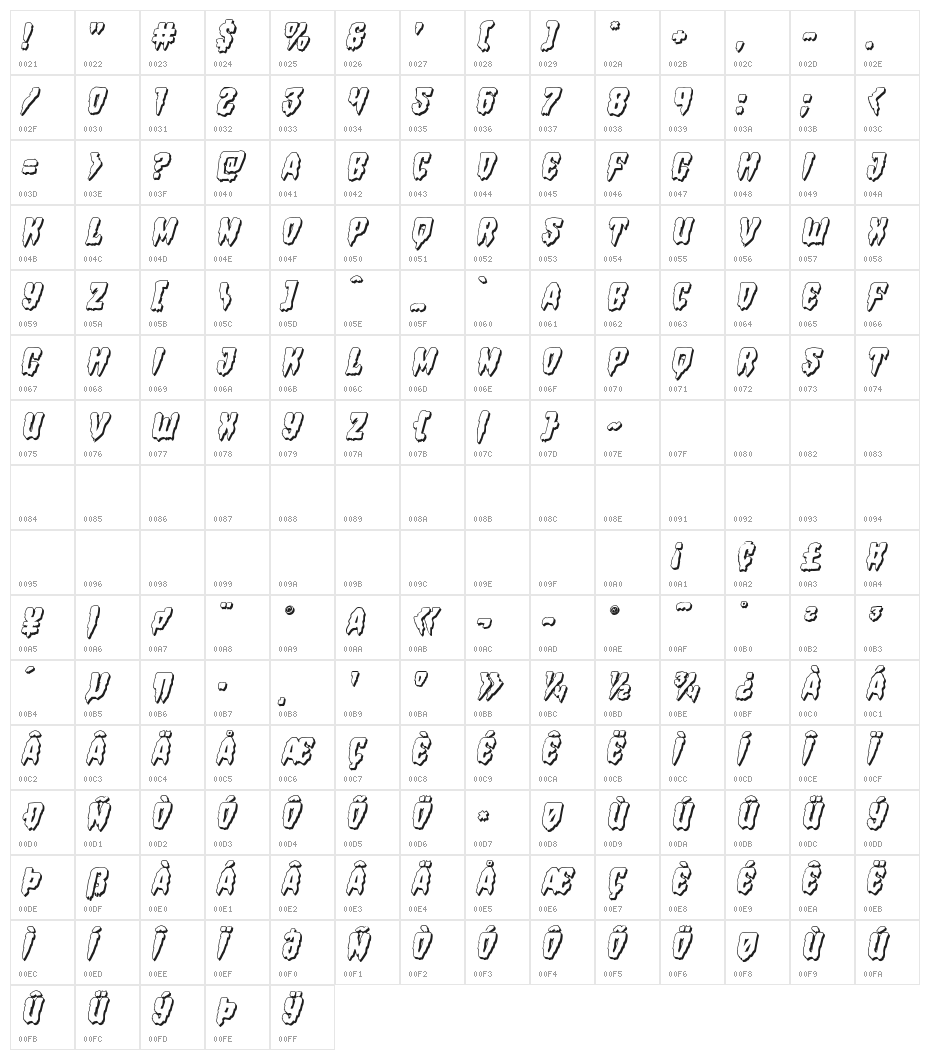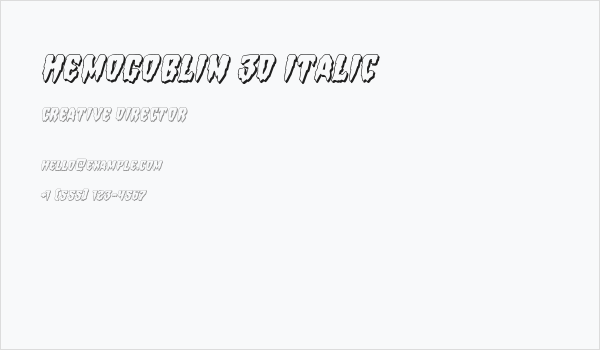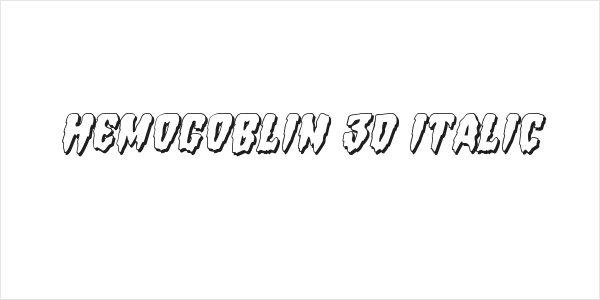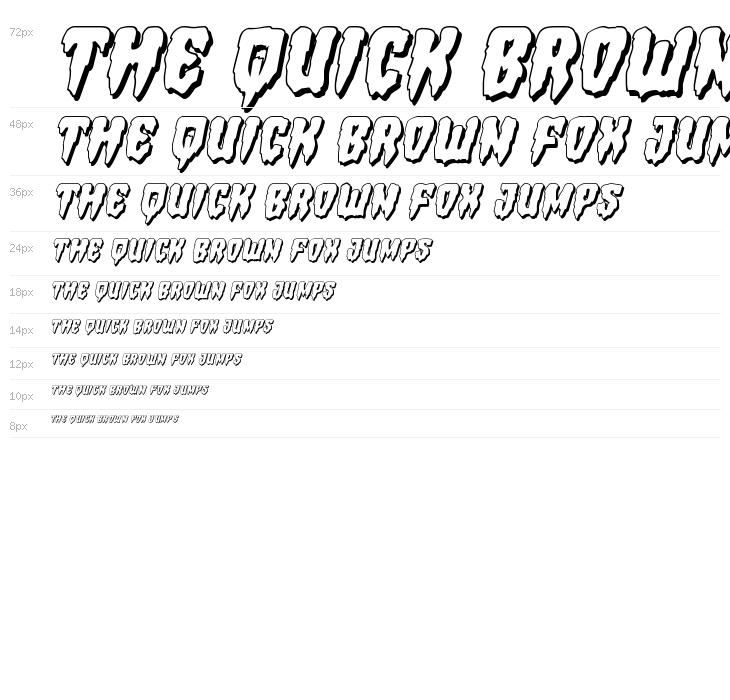
Hemogoblin 3D Italic Font
Hemogoblin 3D Italic Description
This font features a bold, three-dimensional design with a playful and slightly spooky aesthetic. The letters have a jagged, irregular outline that gives them a dynamic and energetic appearance. The 3D effect is achieved through a shadow-like extension on one side of each character, adding depth and a sense of movement. The italic slant enhances the font's lively and informal style, making it suitable for creative and unconventional projects. The characters are well-spaced, ensuring readability despite their intricate design. This font is ideal for capturing attention and conveying a sense of fun and excitement.
| Proposed Projects | Ideal for Halloween-themed graphics, comic book titles, party invitations, and creative posters. |